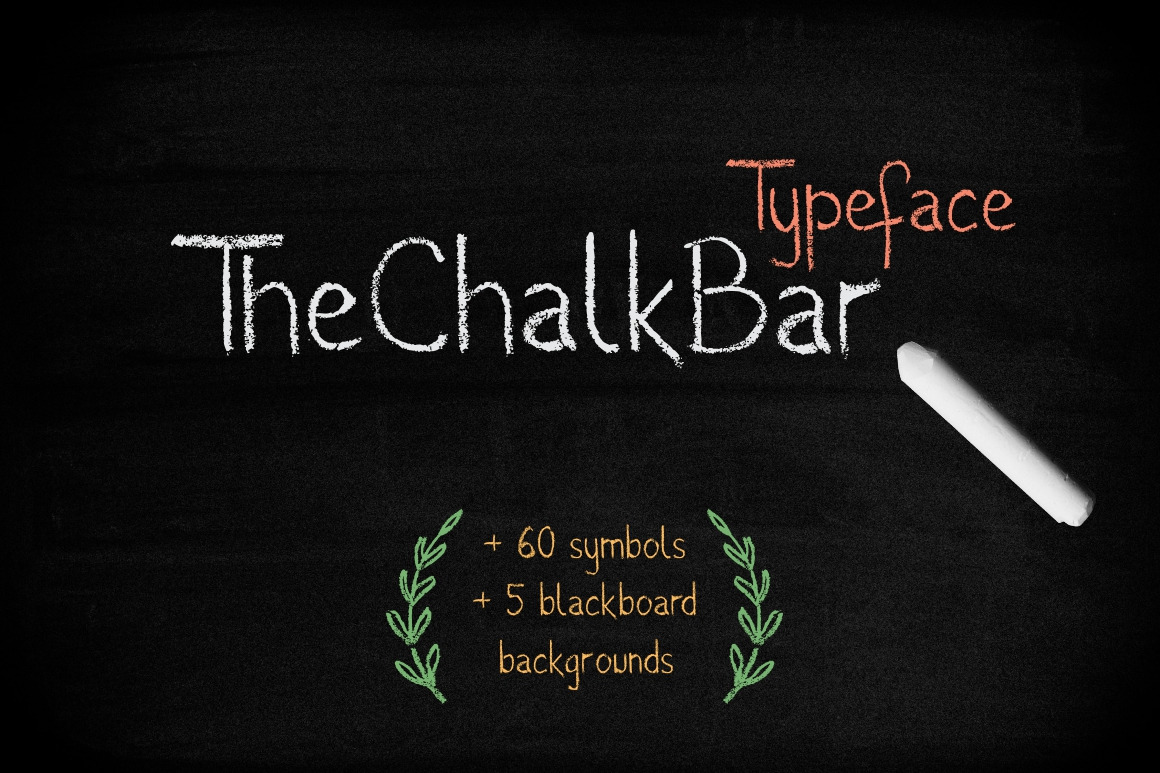
The Chalk Bar Typeface
A brand new typeface perfect for any project related to school, restaurants, bars & pubs and many other.
It contains more than 200 fully kerned glyphs, supporting the most common languages, but also 60 symbols & 5 high resolution seamless blackboard textures so you can finish your project in no time.
It is carefully crafted for a classic clean look and legibly.